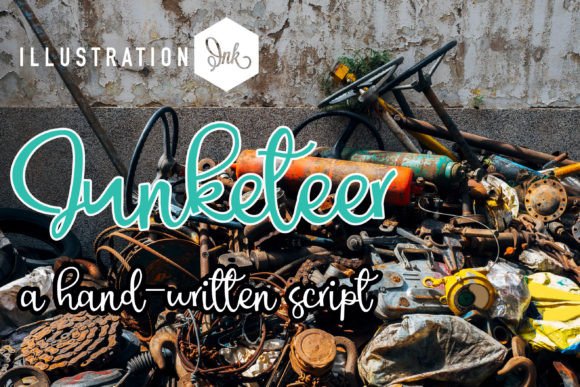
Download Junketeer Font for free! Created by Illustration Ink and published by Julian Coffman, this script font family is perfect for adding a unique touch to your designs.